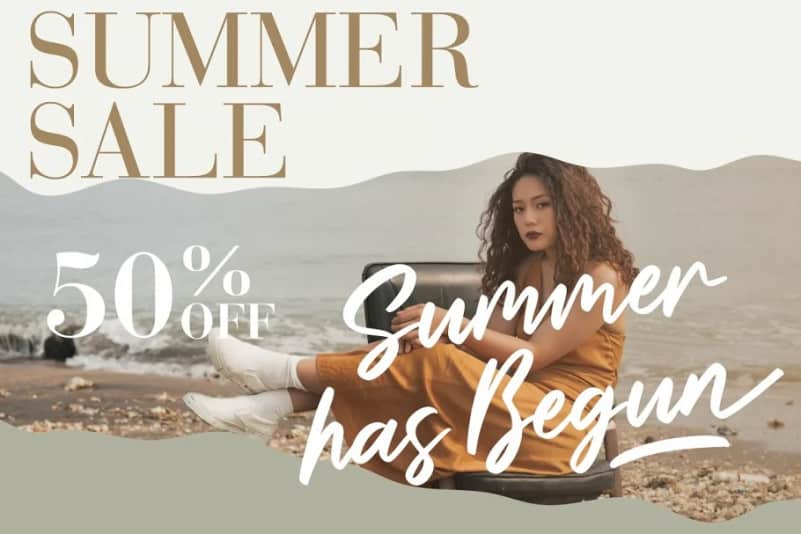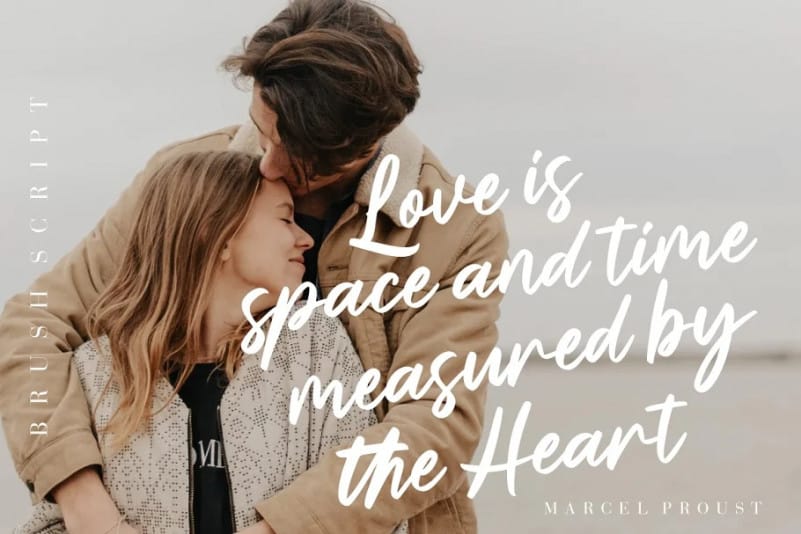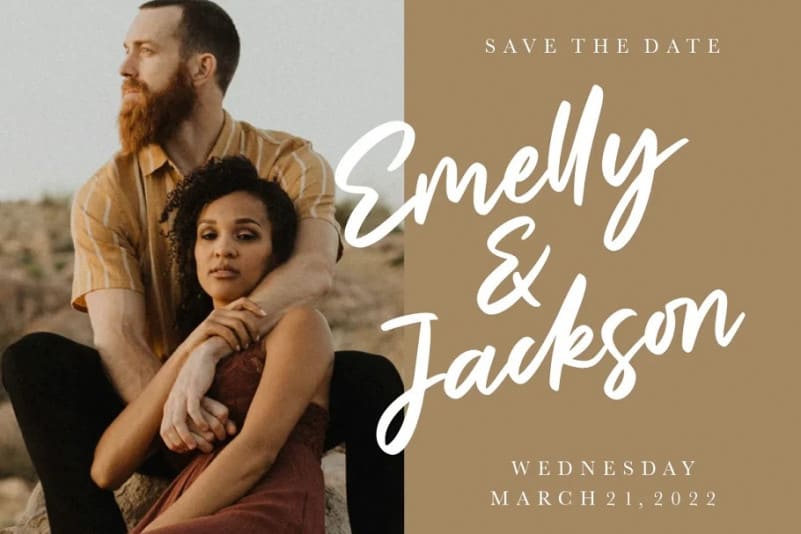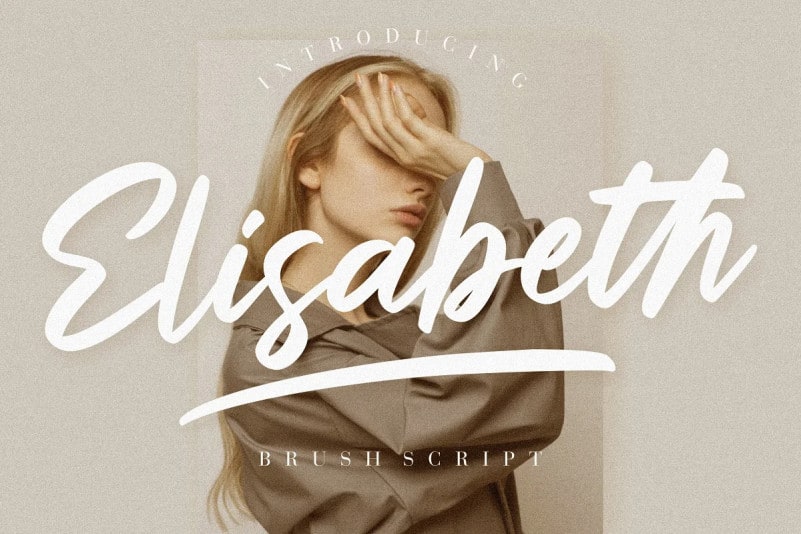
Elisabeth Script Font
Elisabeth Script Font is a high-quality luxury brush font created by Creatype Studio with realistic bold handwritten textures.
Elisabeth is perfect for branding projects, logo, wedding designs, social media posts, advertisements, product packaging, product designs, label, photography, watermark, invitation, stationery and any projects that need handwriting taste.